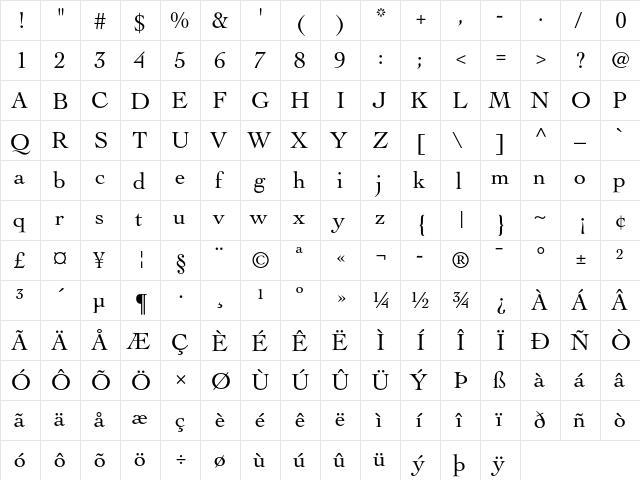
Cochin Medium Font Preview
Cochin Medium
Design Context for Cochin Typeface
Cochin is a composed and adaptable typeface that performs quietly and consistently across a wide range of design contexts.